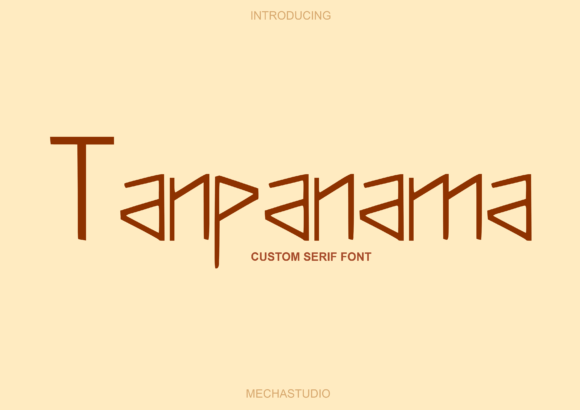
Behold Tanpanama, a font spectacle that radiates modern brilliance, understated simplicity, and invigorating clarity. Immerse yourself in the allure of this display font and let your creativity soar like never before.
With Tanpanama, your poster titles take on a majestic presence, capturing attention like magnets. Each character exudes a refined elegance, drawing the eyes into your words and leaving a lasting impression.
Unleash your imagination and explore the boundless possibilities. Tanpanama's versatility extends from the sleek lines of logos to the captivating aura of branding, stationery, and wedding designs. Its charm graces social media posts, effortlessly elevating your content to new heights of engagement.
This font isn't just another addition to your collection; it's a gateway to a world of captivating designs. Experience the ease of use and let Tanpanama infuse your projects with its timeless sophistication.
Join the creative revolution and embrace Tanpanama, a font destined to become your go-to choice for stunning visuals. Add it to your arsenal of design tools and witness the transformation of your ideas into captivating masterpieces. Tanpanama—simplicity, elegance, and endless possibilities, all in one font.